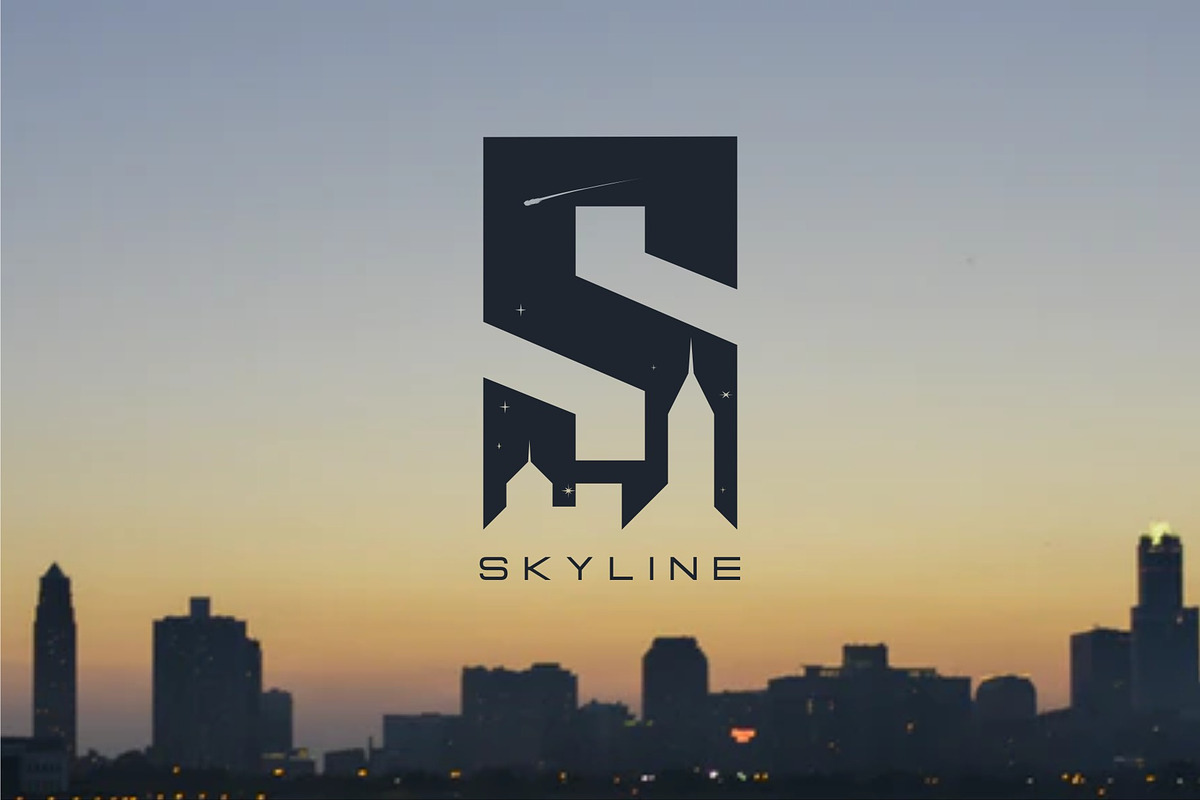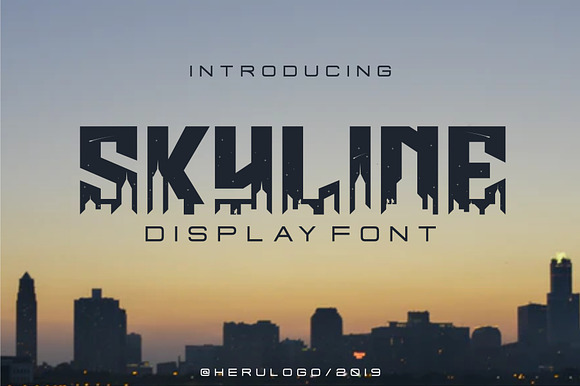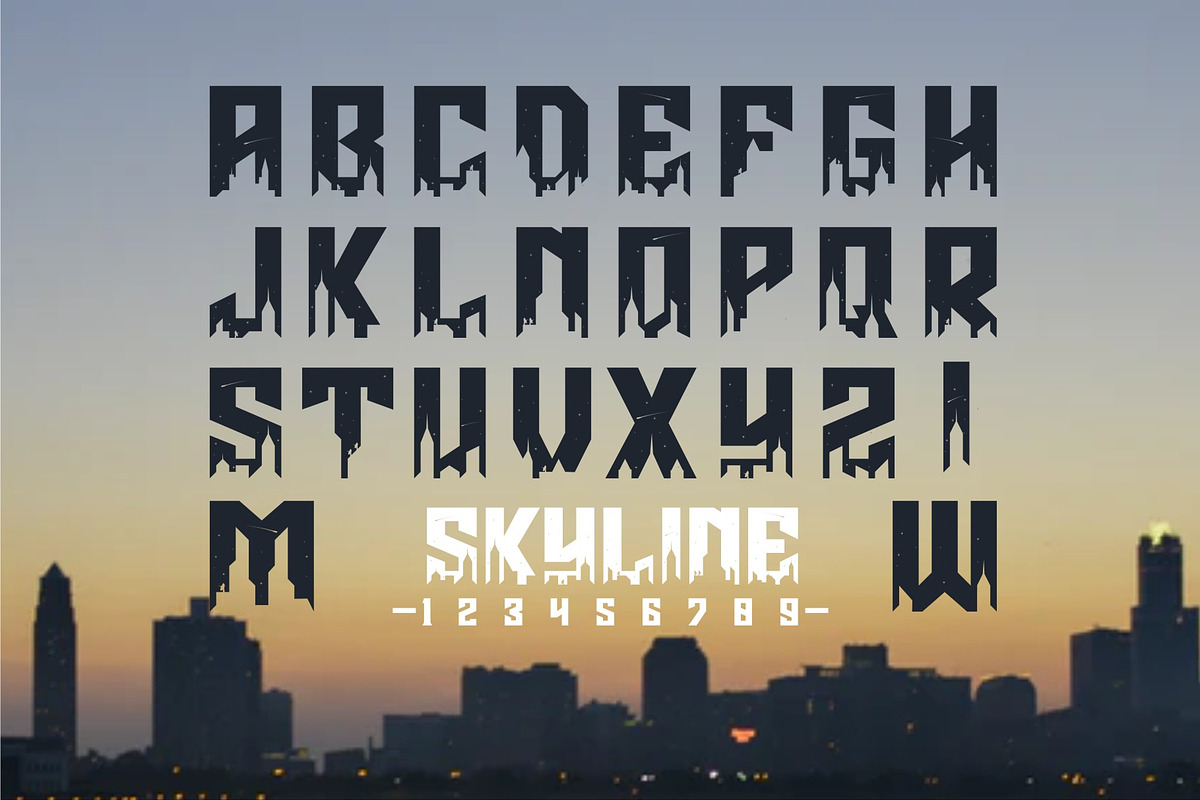
SKYLINE DISPLAY FONT
Why SKYLINE DISPLAY FONT is worth a look
SKYLINE DISPLAY FONT by herulogo fits naturally into Branding, posters, packaging, typography.